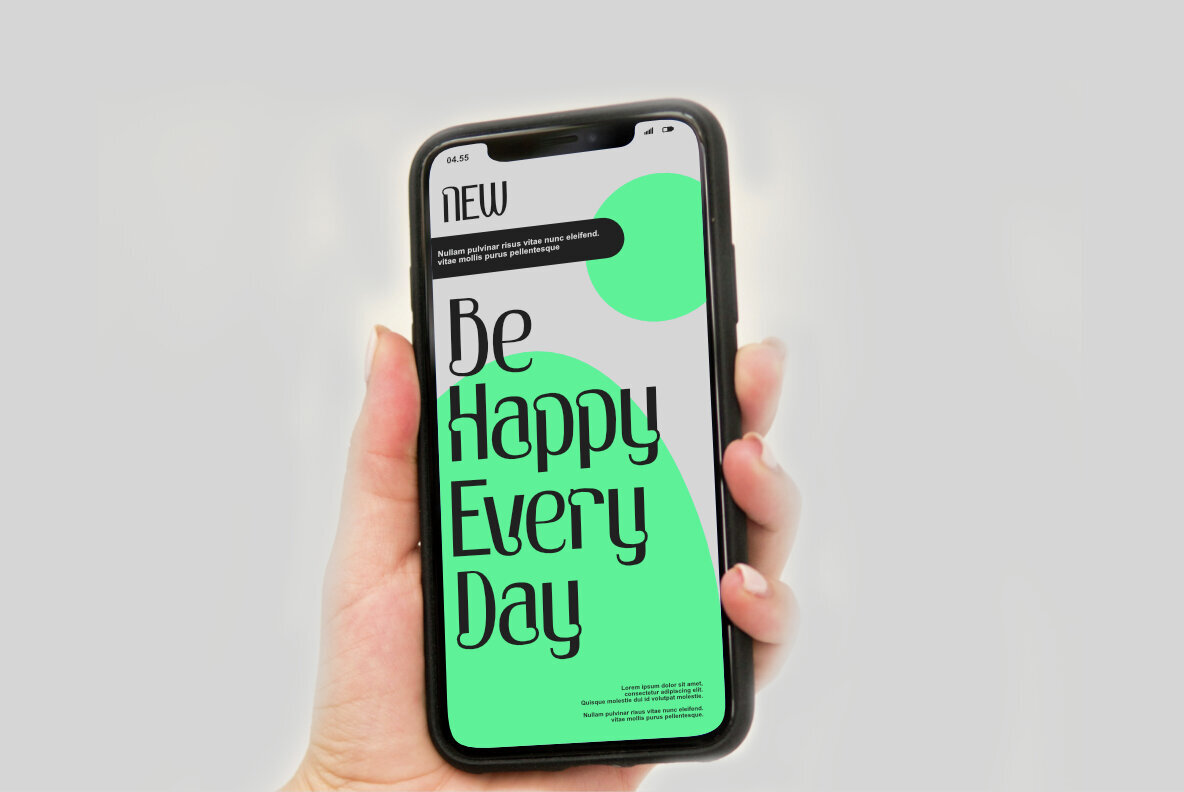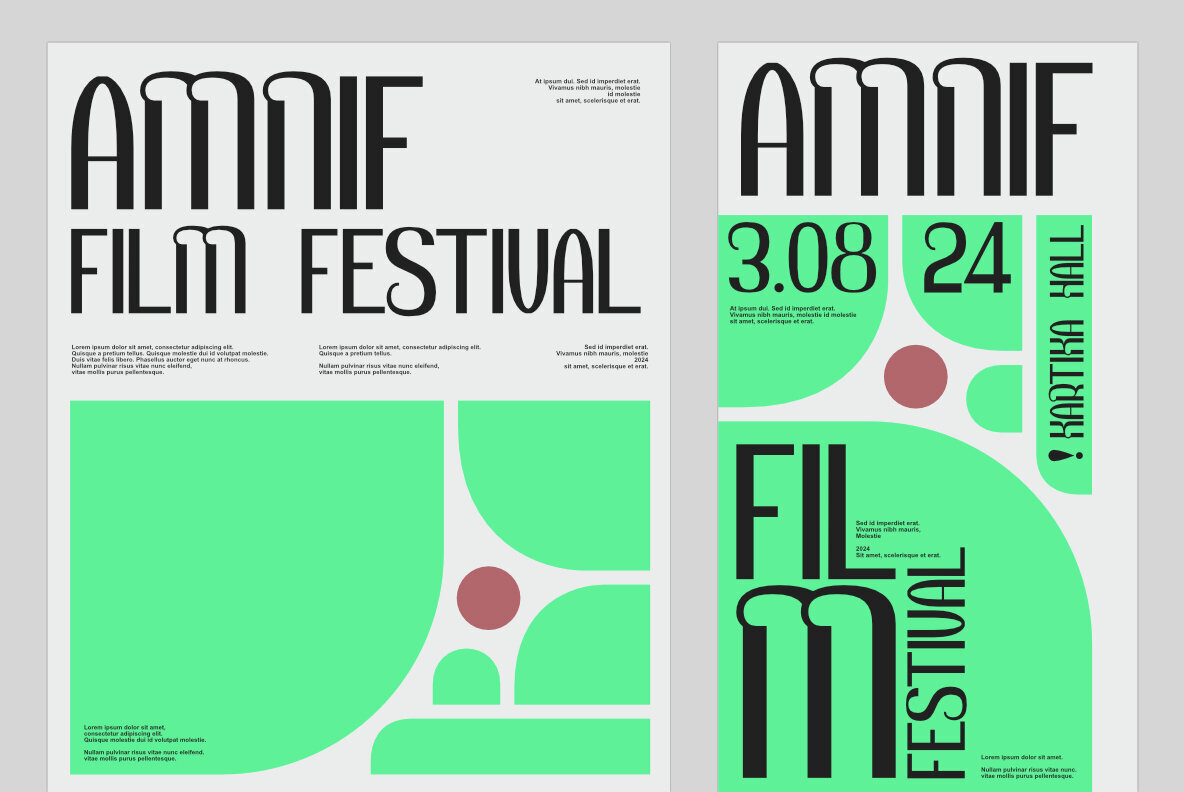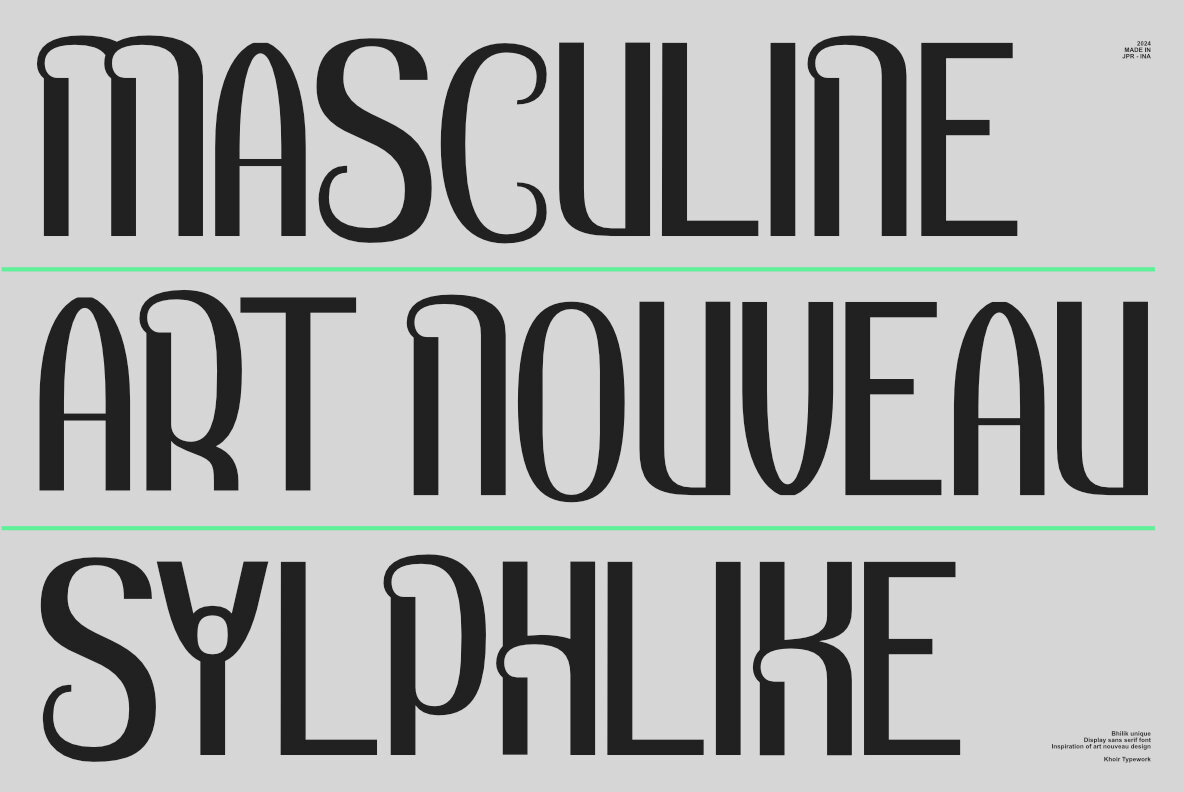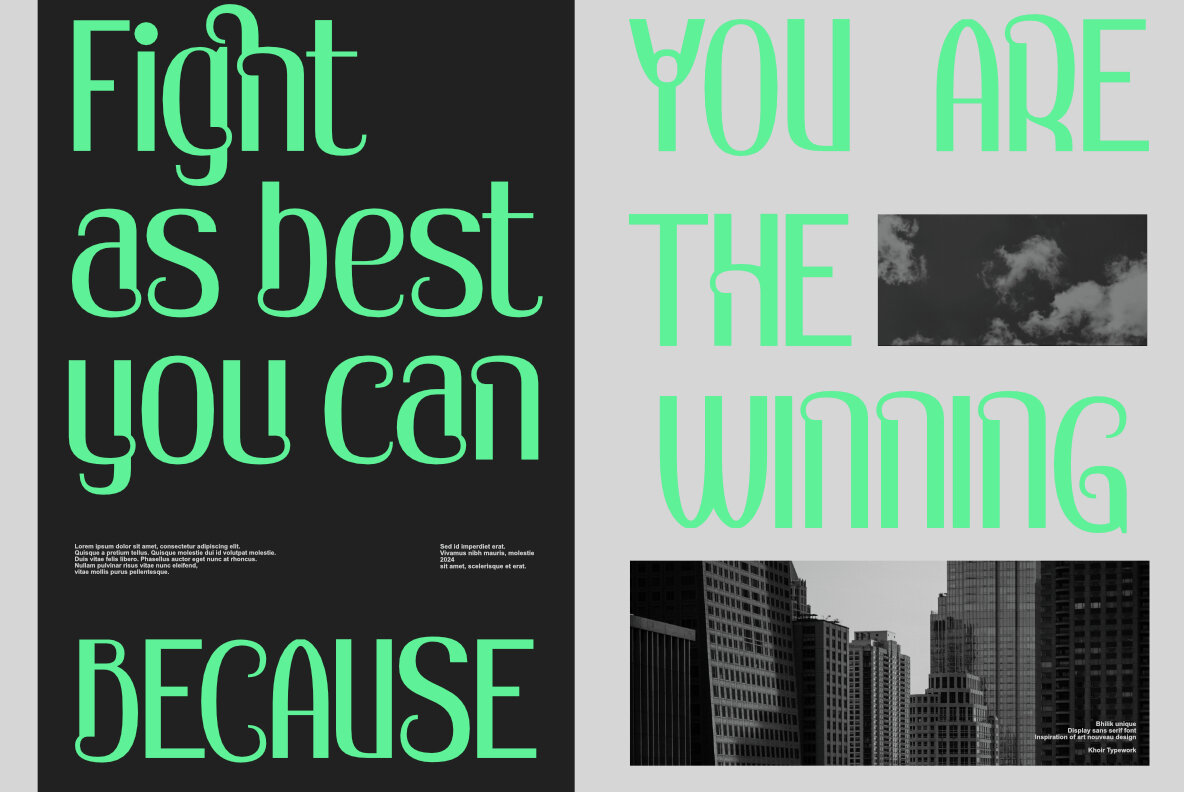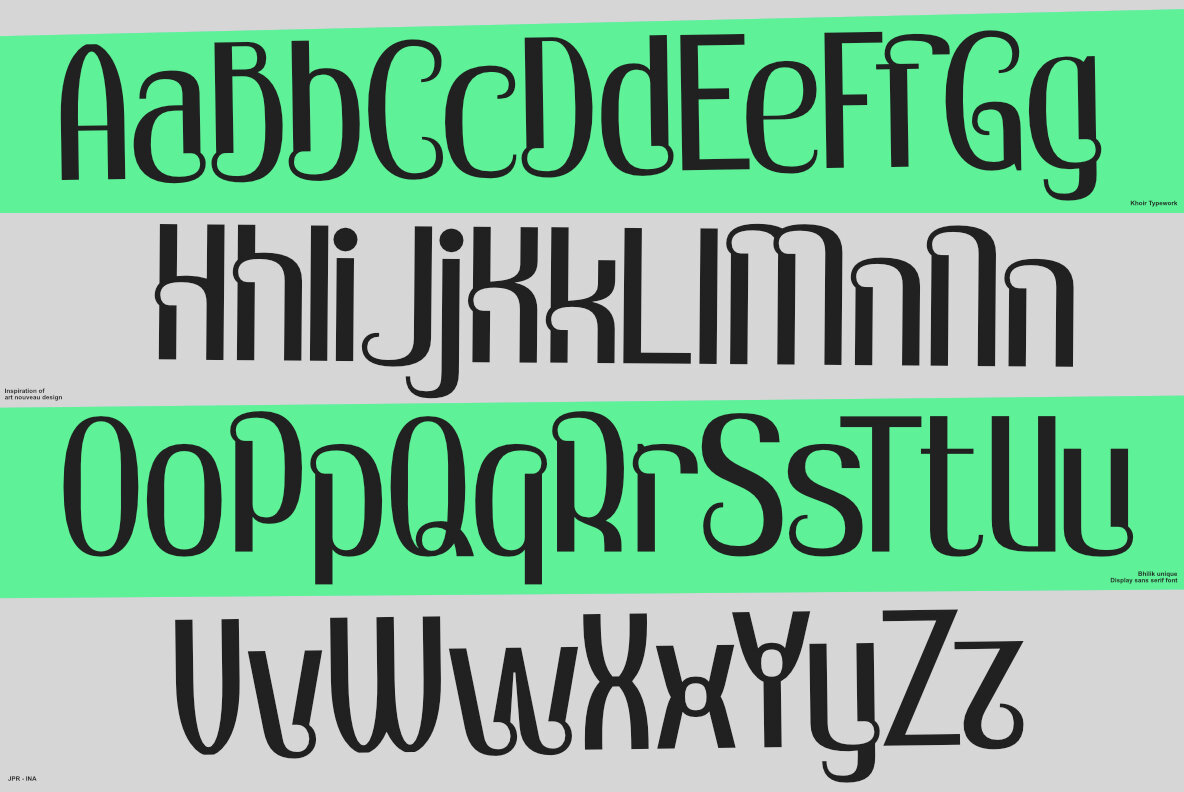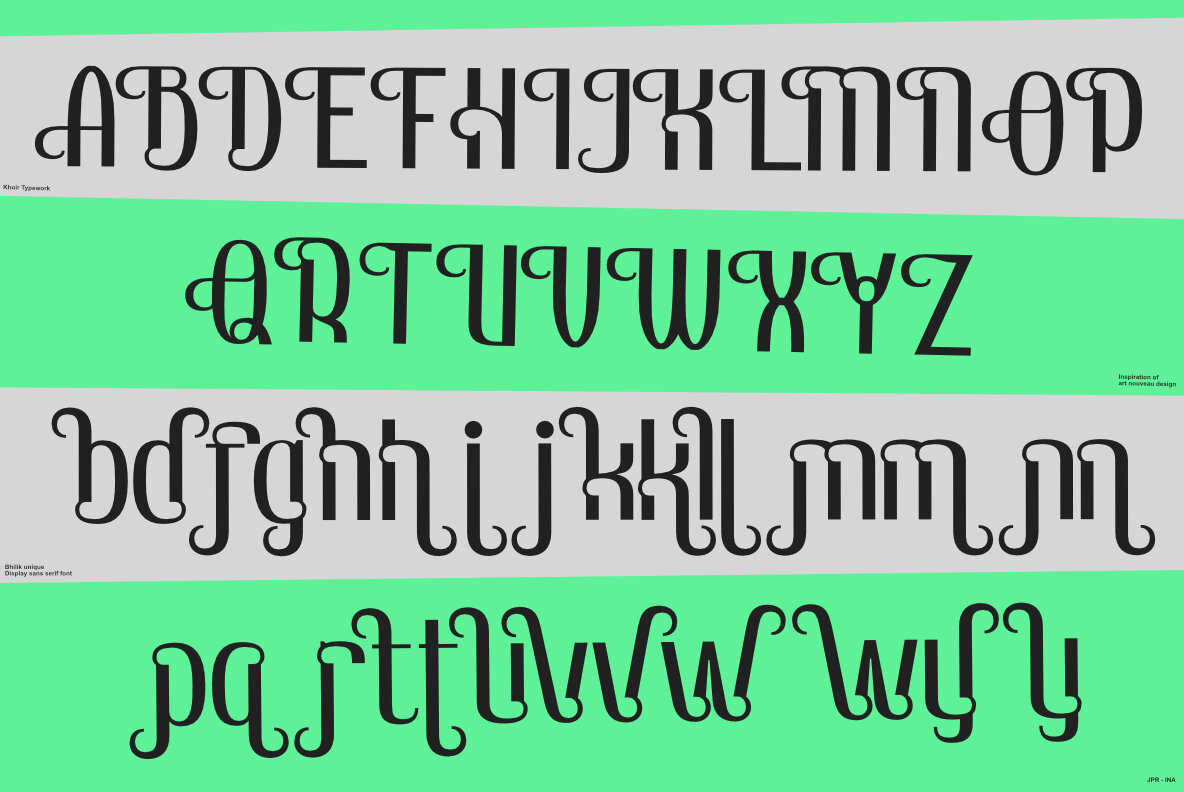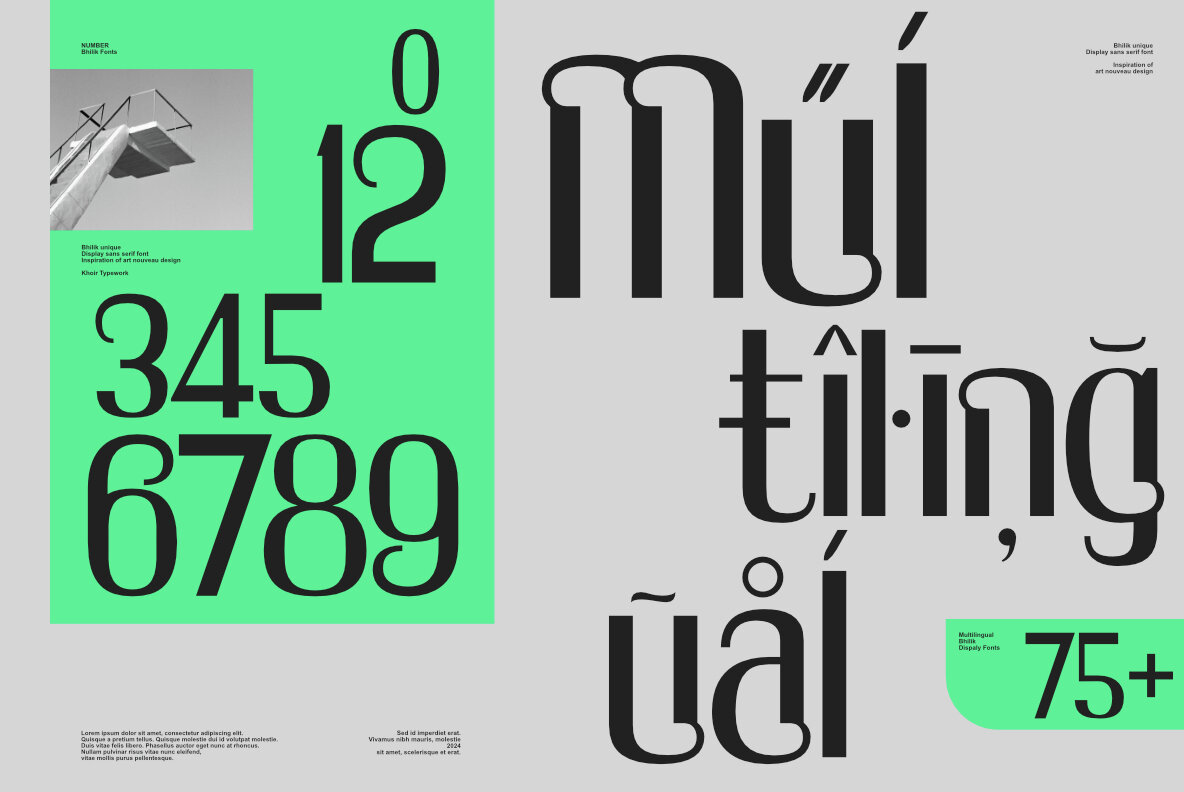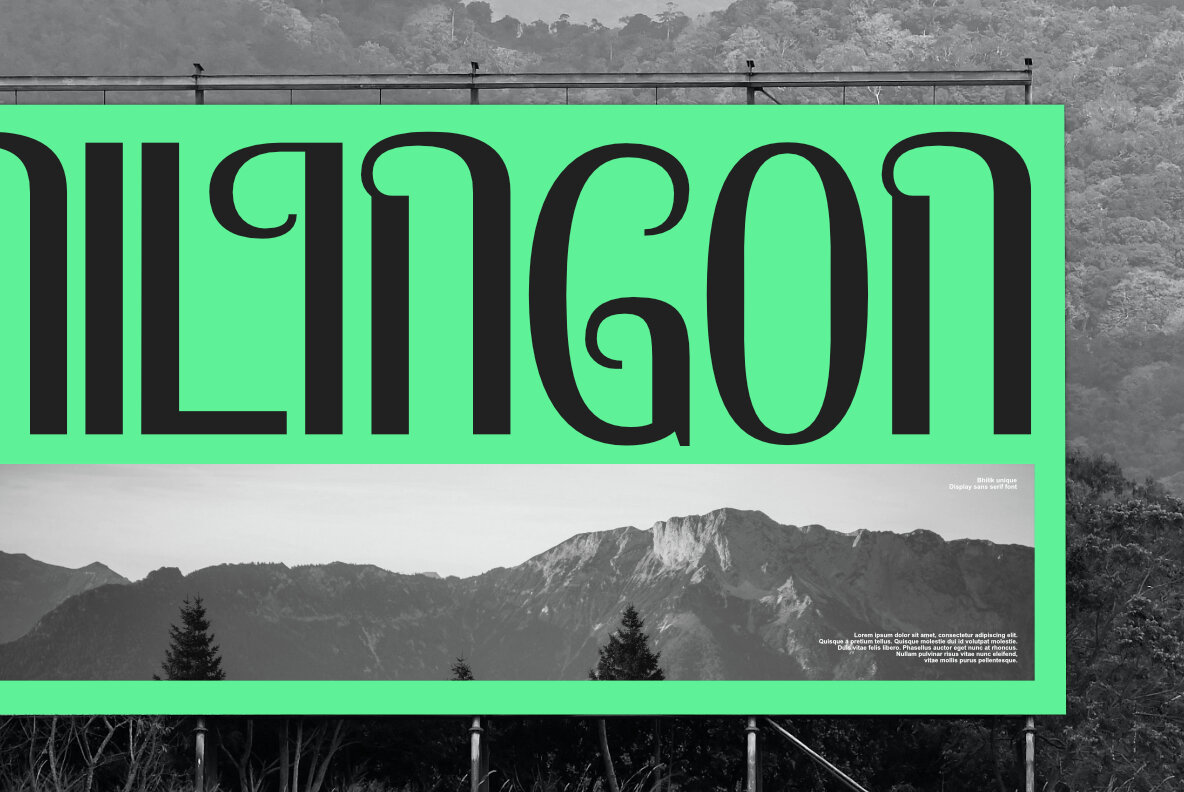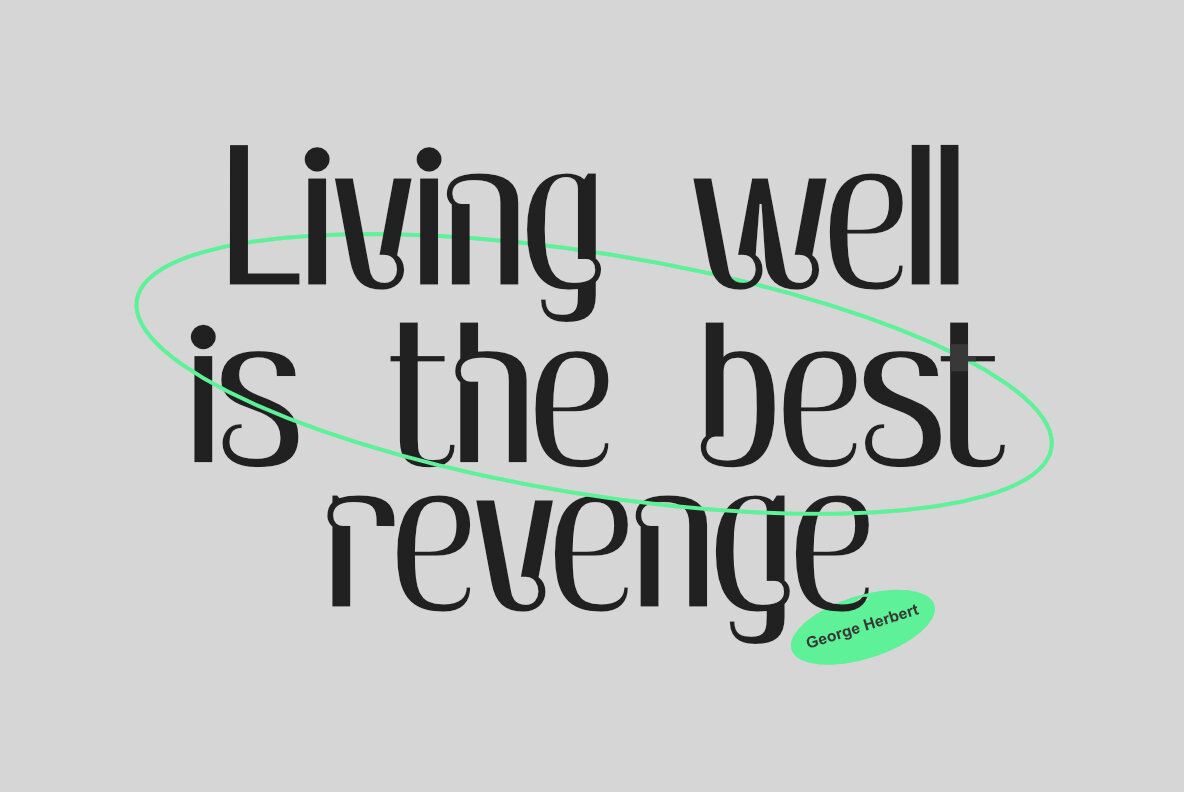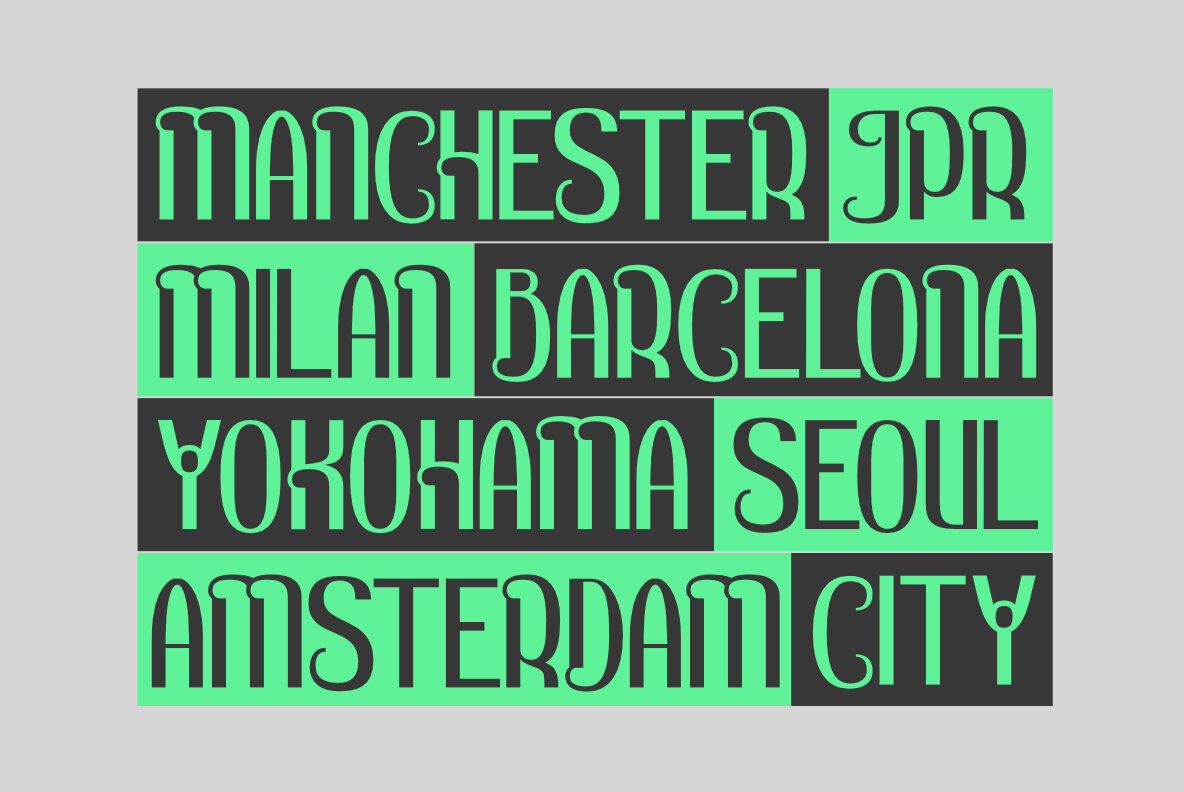
Bhilik Font
Bhilik Regular
Bhilik is a tall sans serif font characterized by a unique combination of art nouveau and minimalist design elements. Its distinct shapes, adorned with buns and curls, offer a stylish and sophisticated look. With support for over 75 languages and a variety of font alternates, Bhilik adapts to diverse design needs, making it a versatile choice for multiple projects.
Ideal for branding, social media, logos, and magazine posters, this font's sleek and artistic appeal ensures it stands out in any application. Whether you need uppercase or lowercase characters, Bhilik provides the flexibility and creativity needed to enhance your design projects.